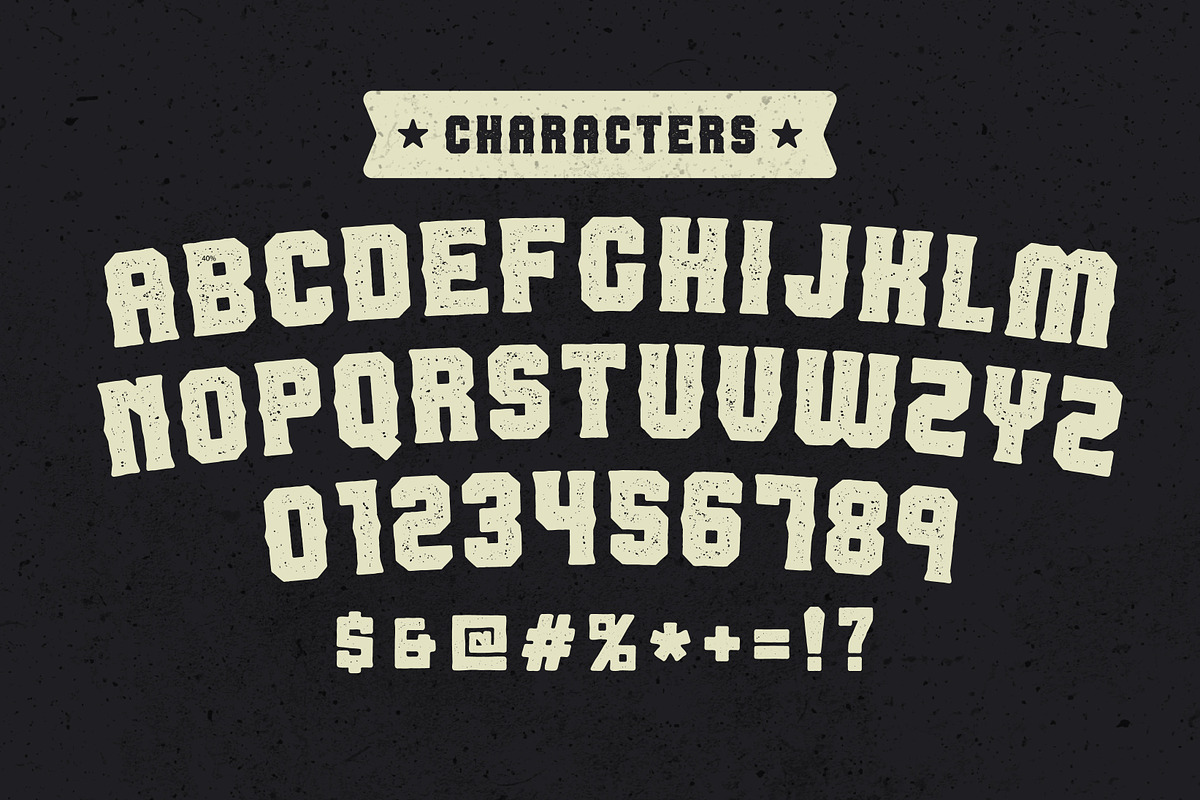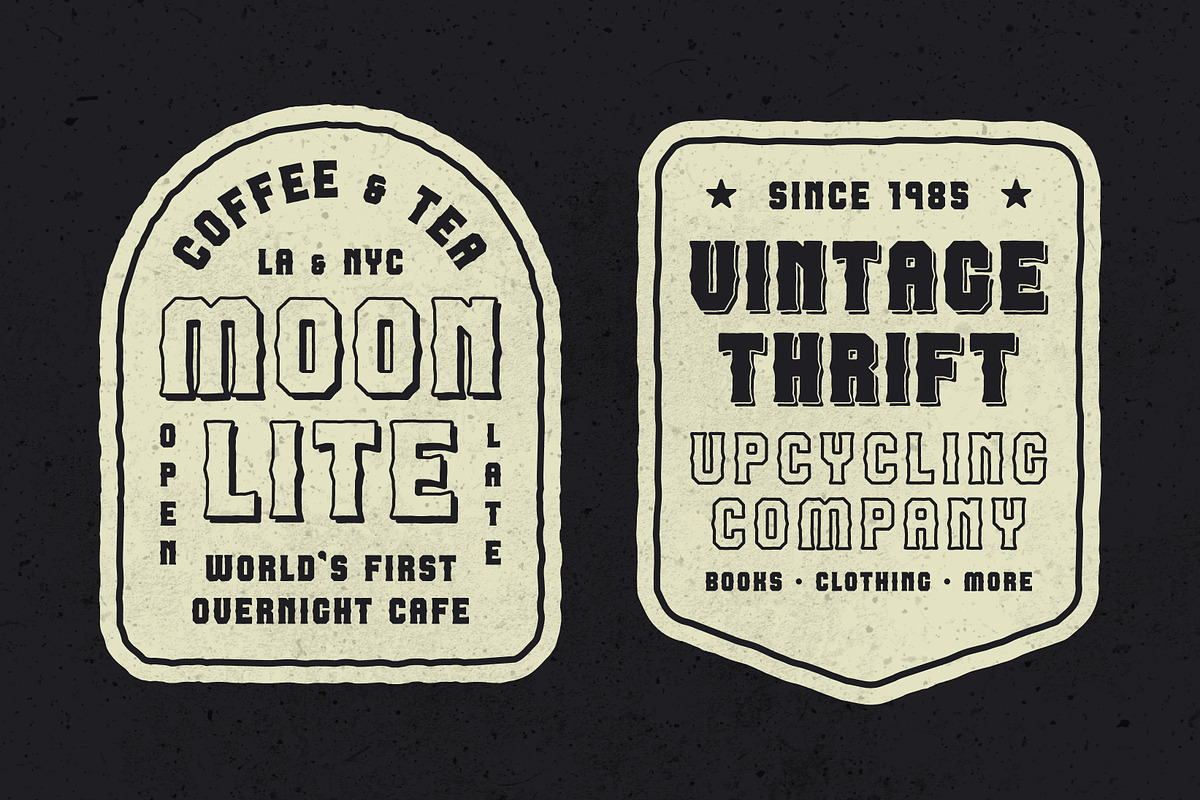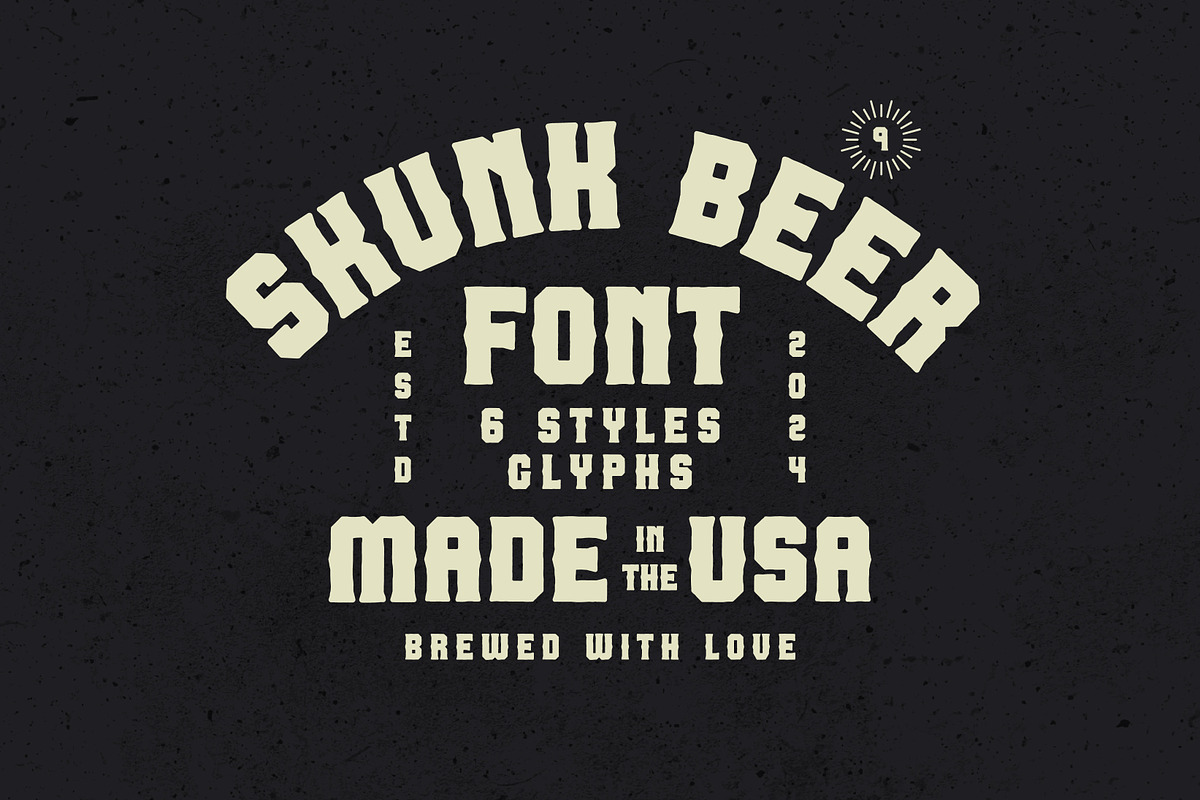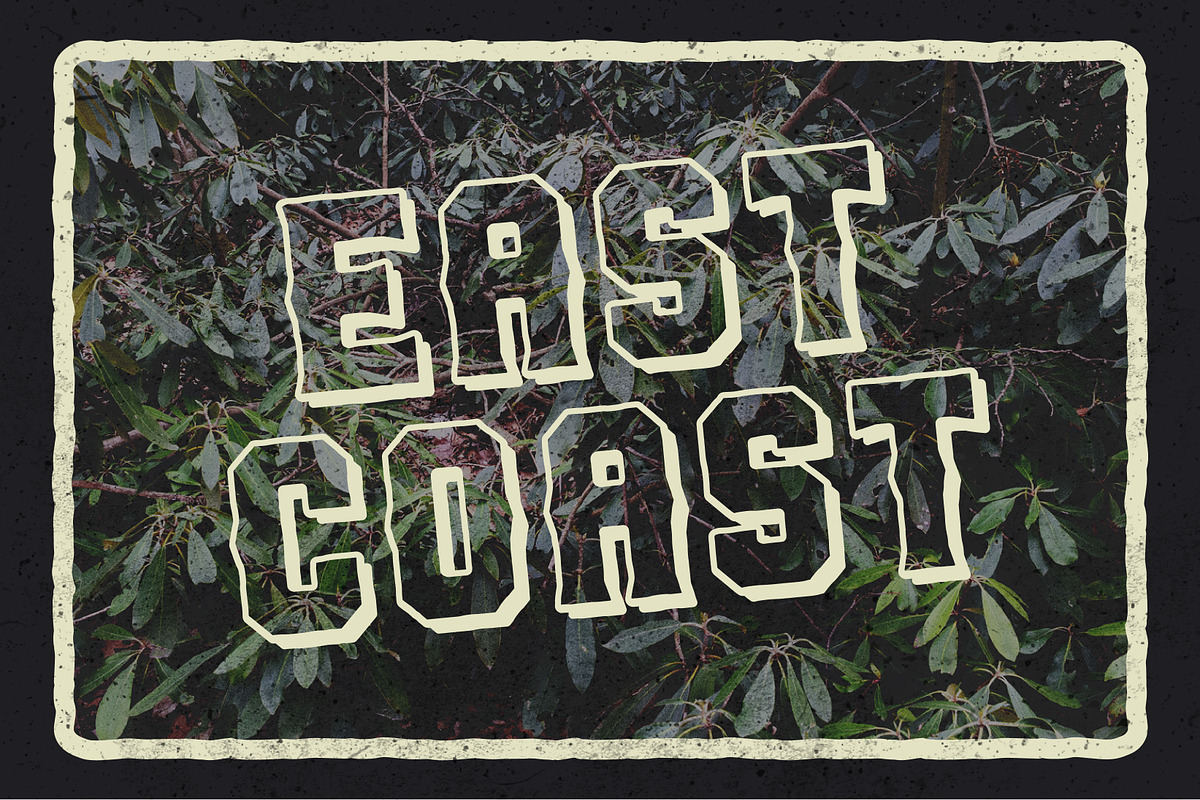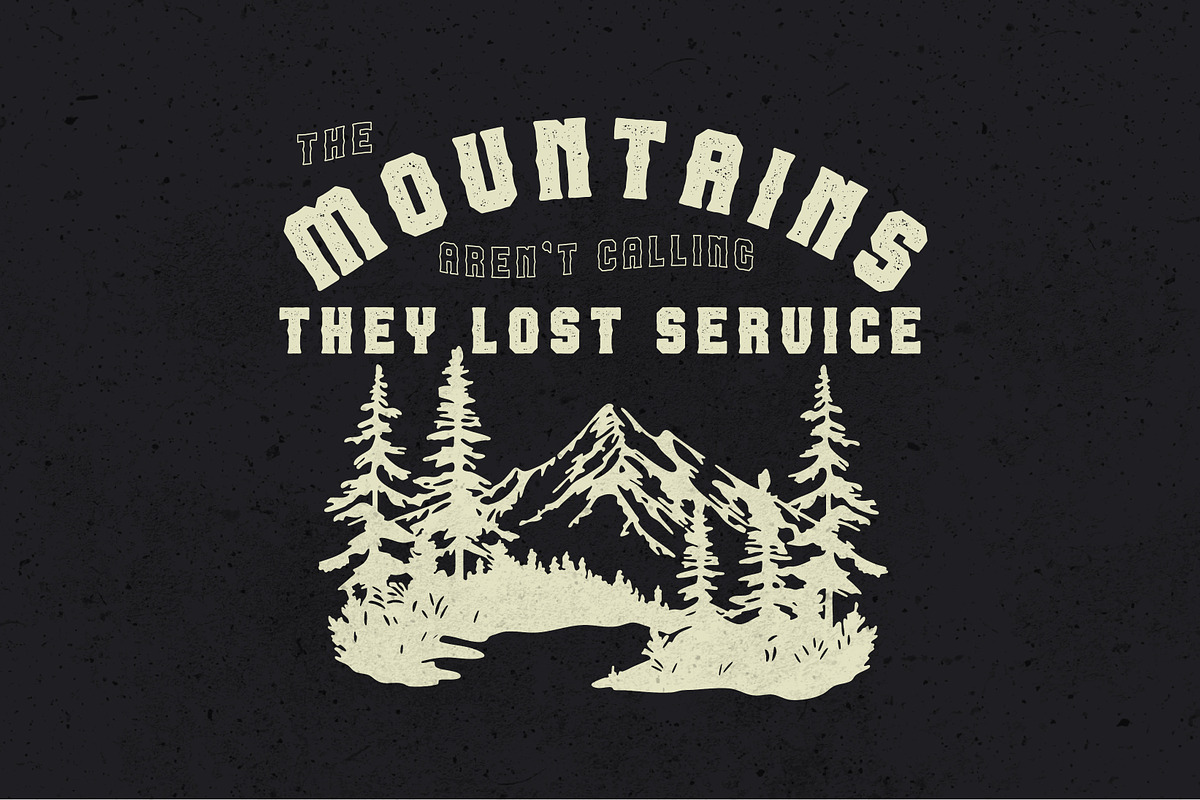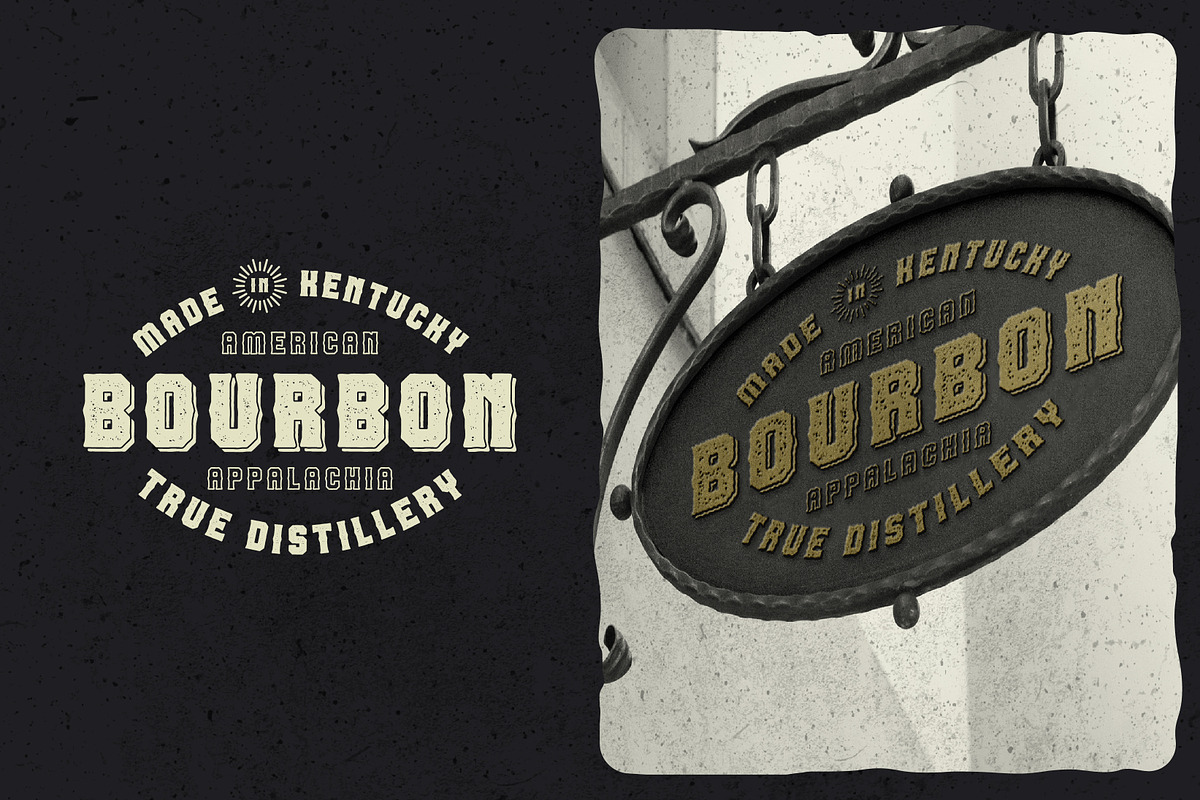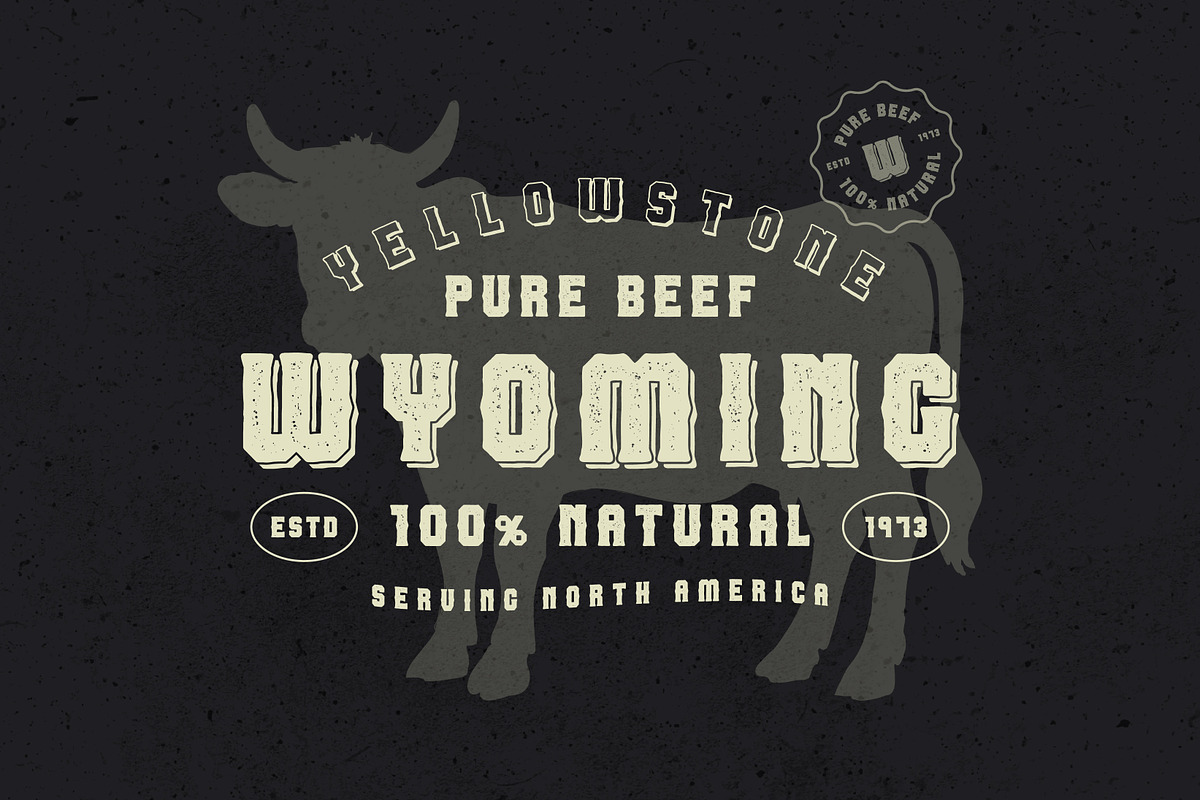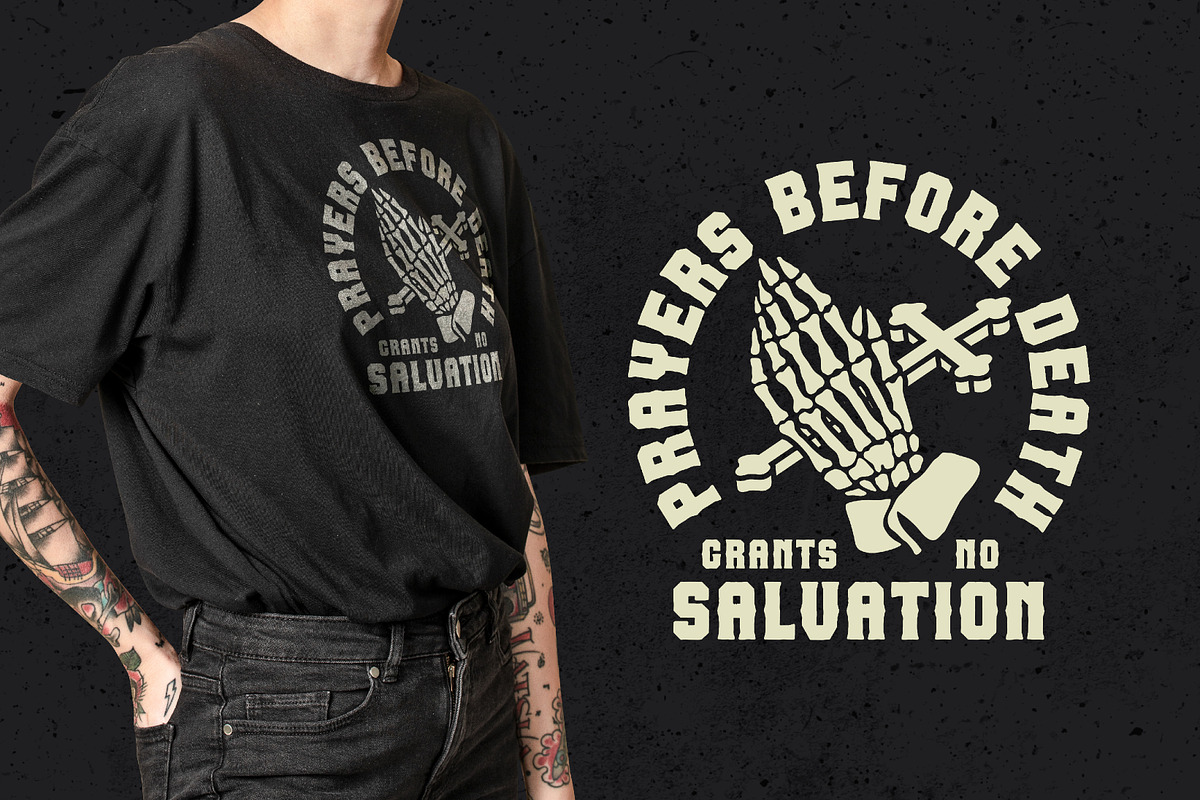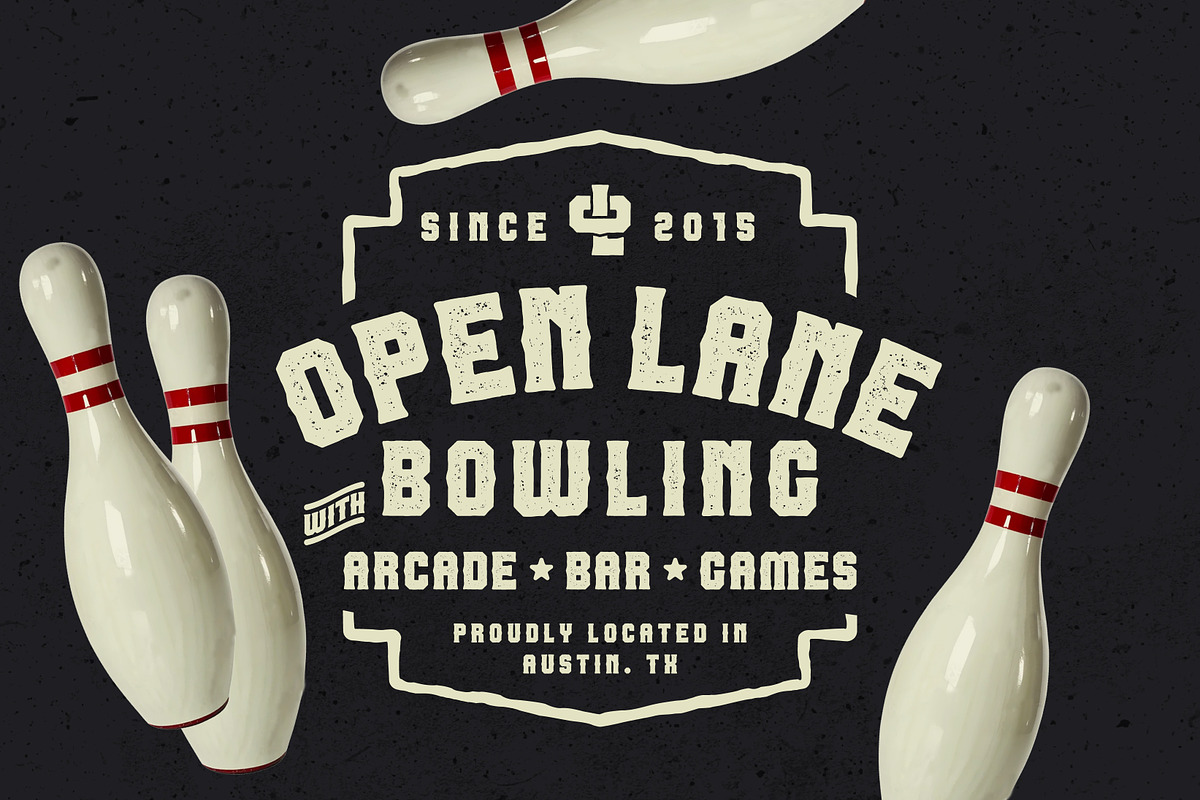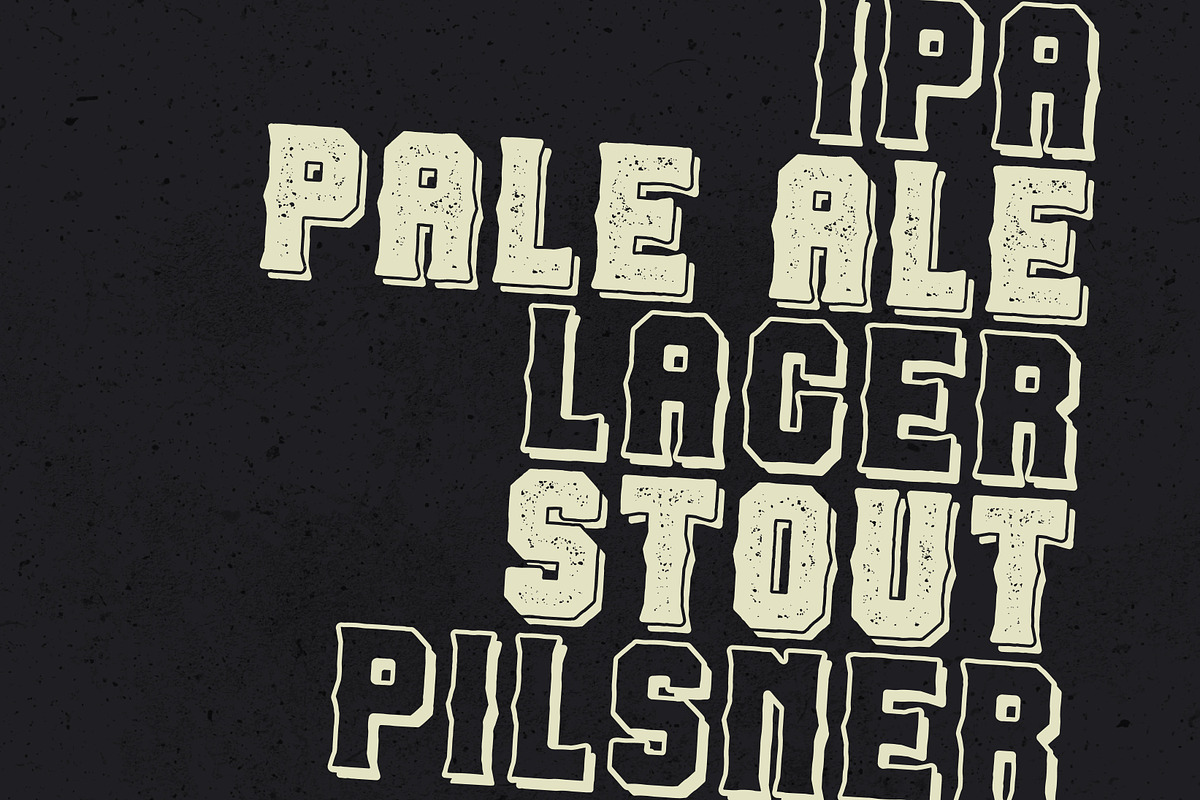
Skunk Beer
Hey, let's all cheer to happier days... Uhh well I guess we'll see what happens. Anyway, here's a cool new font that feels nostalgic while also feeling modern in a familiar sense. Who knows what will happen in the future but we can depend on one thing and that is time will always persist.
Skunk beer is a typeface trying to hold on to a legacy that might feel old-timey but also attempting to be relevant in world that is seemingly futuristic. There is 6 different styles that can be used in any way you would like.
It can certainly be used in badge design but not limited to because it is flexible enough to be used in logo, branding, apparel, and honestly just about any way you can think of. In fact, pushing the boundaries of what it can do is exactly the reason this font was created.
It is an all caps font but has the essential character that you'd expect. Obviously numerals are included. I'd love to see what you come up with!